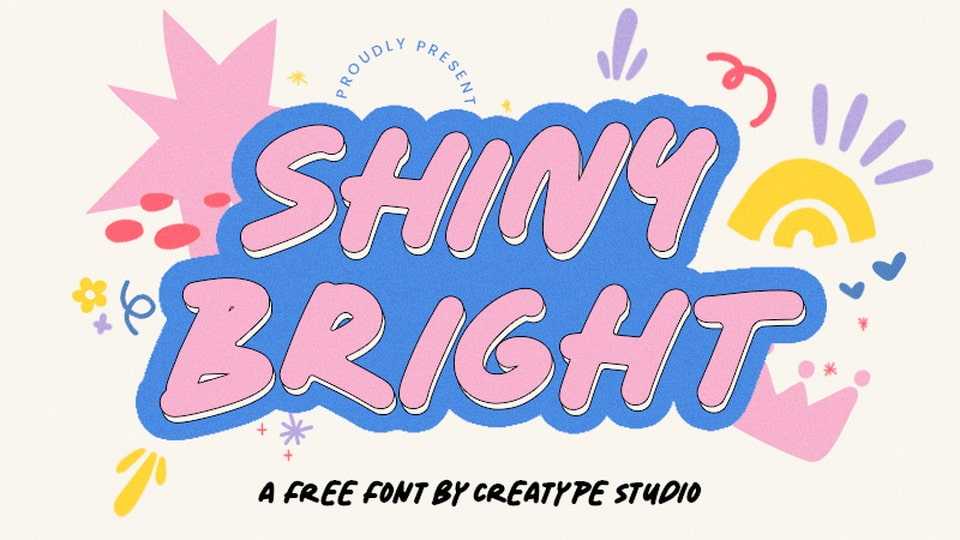
Download Shiny Bright font, a natural and simple hand-drawn typeface that captures the effortless charm of casual handwriting with its its slightly tilted letterforms and smooth strokes.